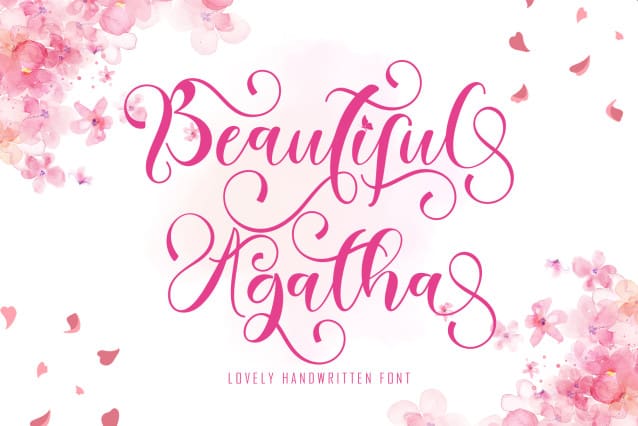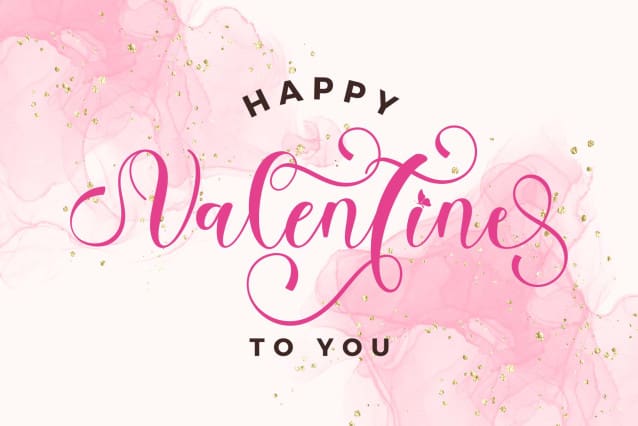
Beautiful Agatha Font
Beautiful Agatha Font is the best beautiful handwritten font. This font comes with uppercase, lowercase, ligature, swash, alternate, punctuation, and multilingual support. very suitable for weddings, engagements, invitations, Christmas, Valentine’s, spring, summer, autumn, etc.